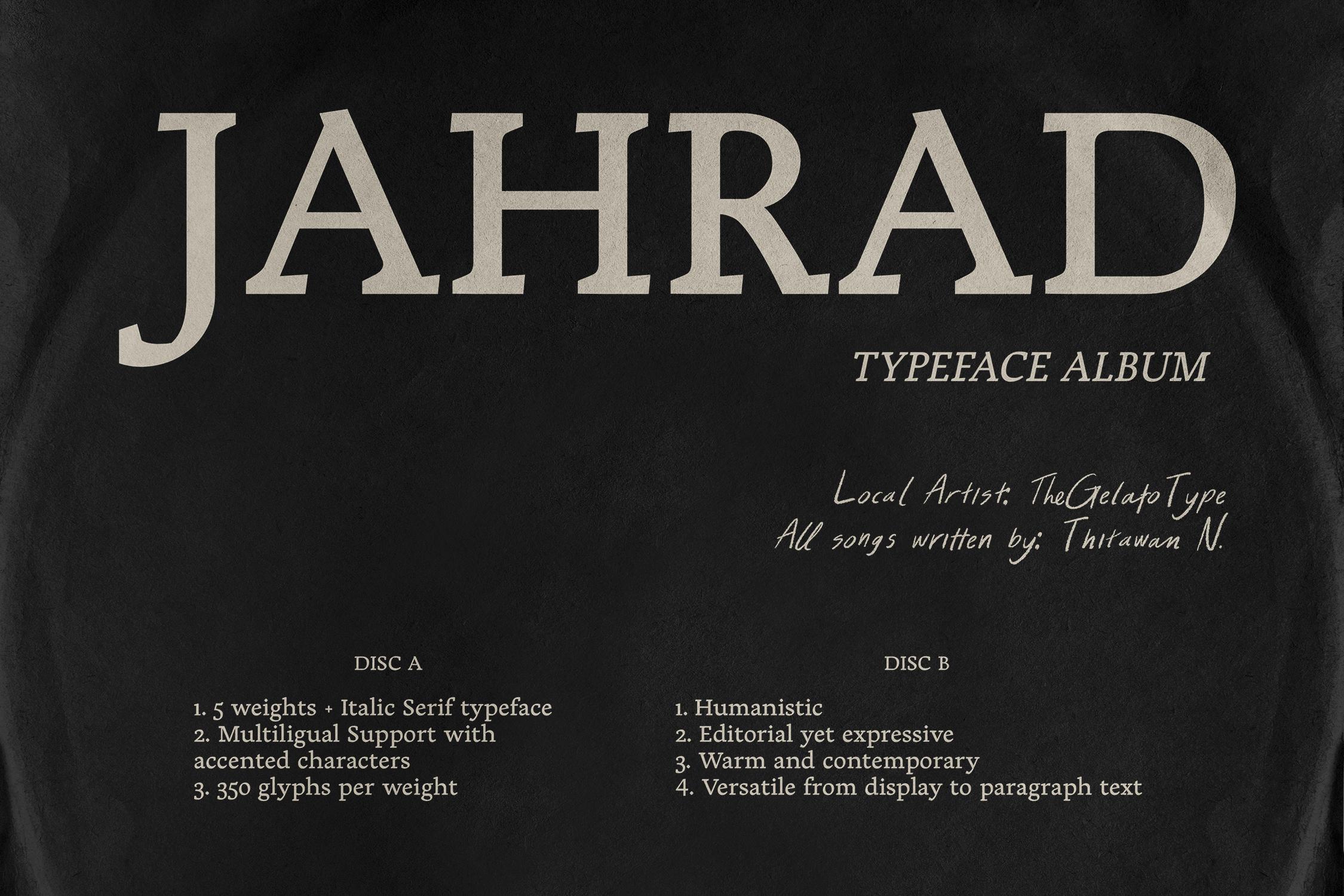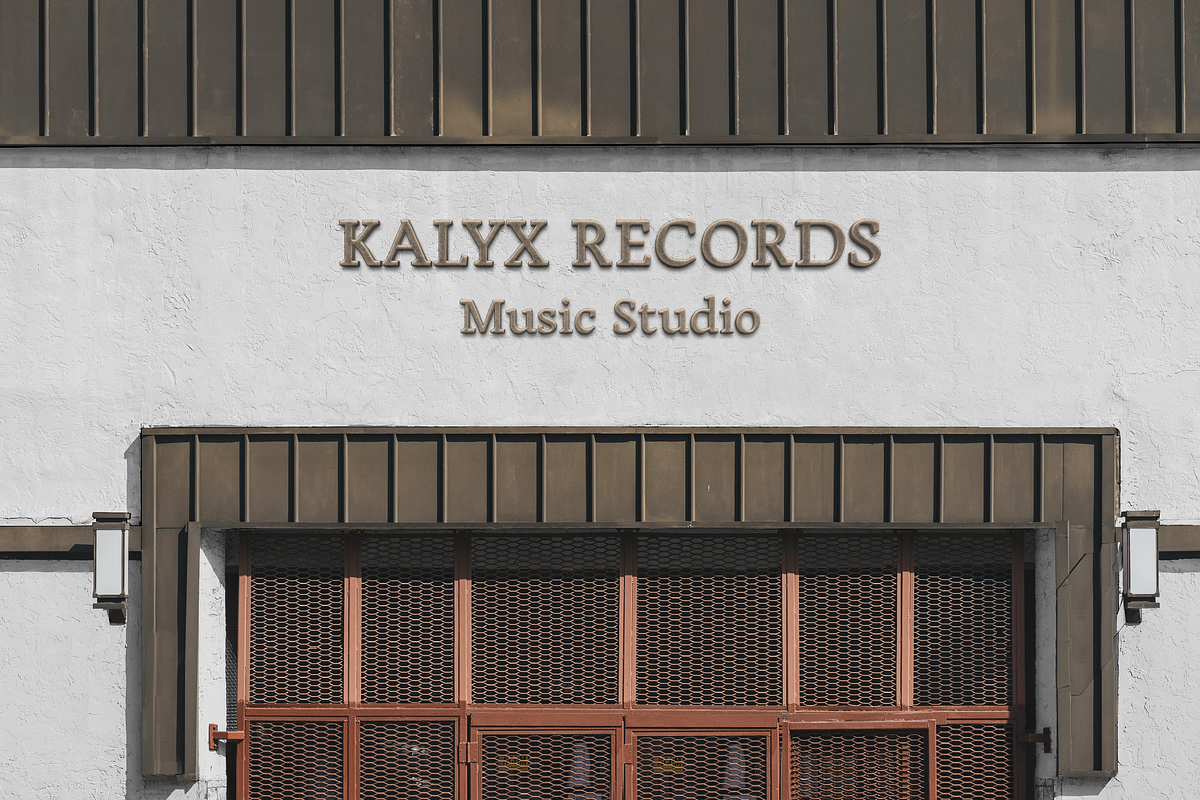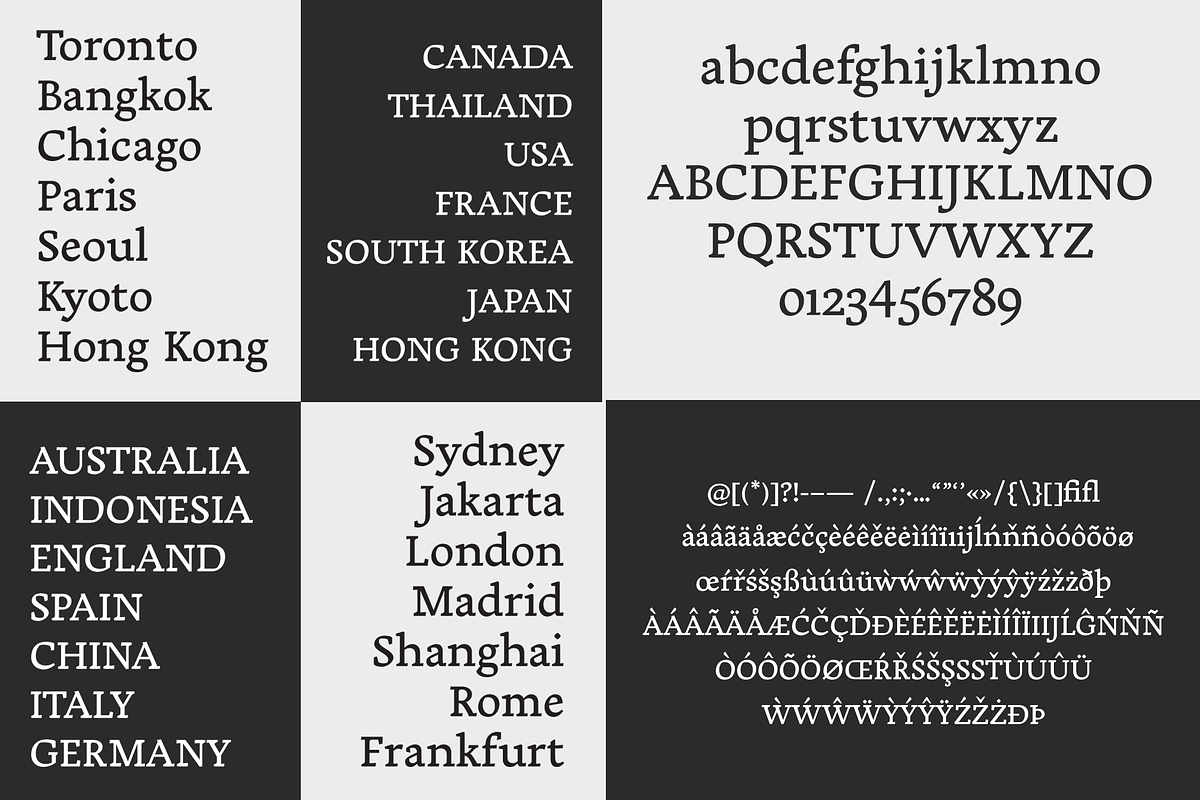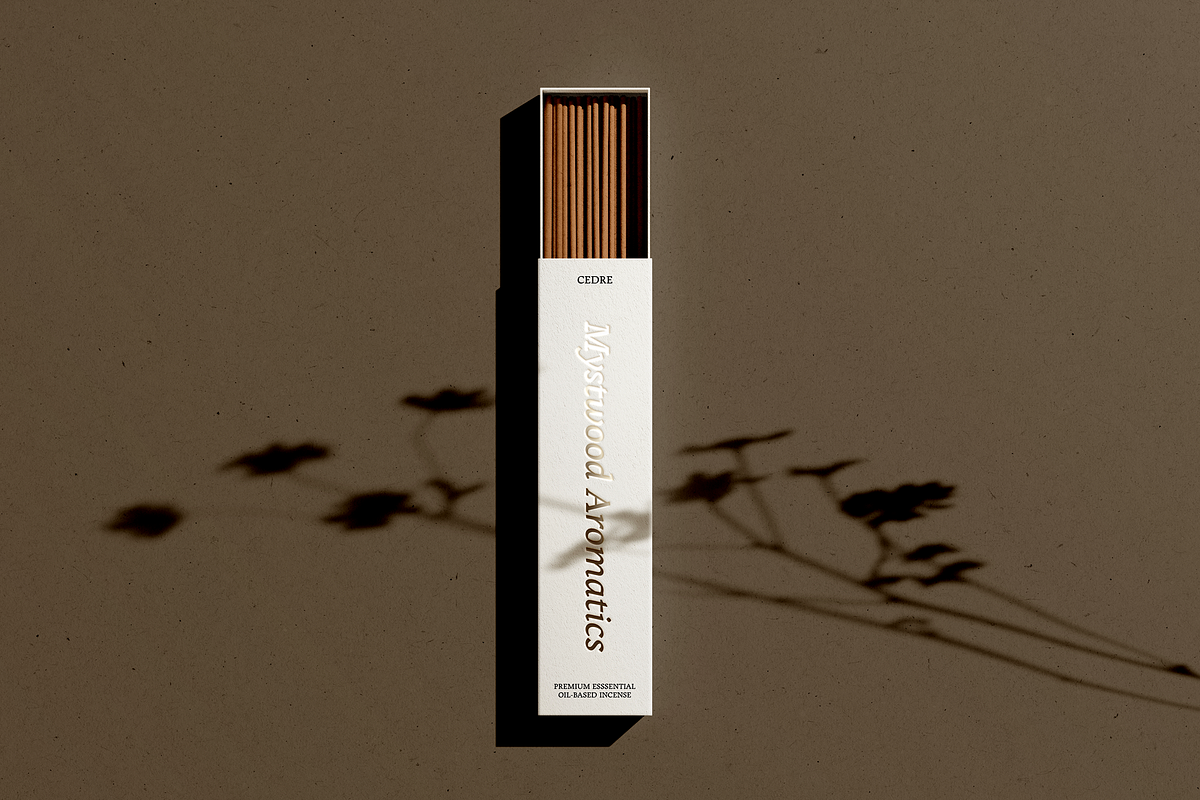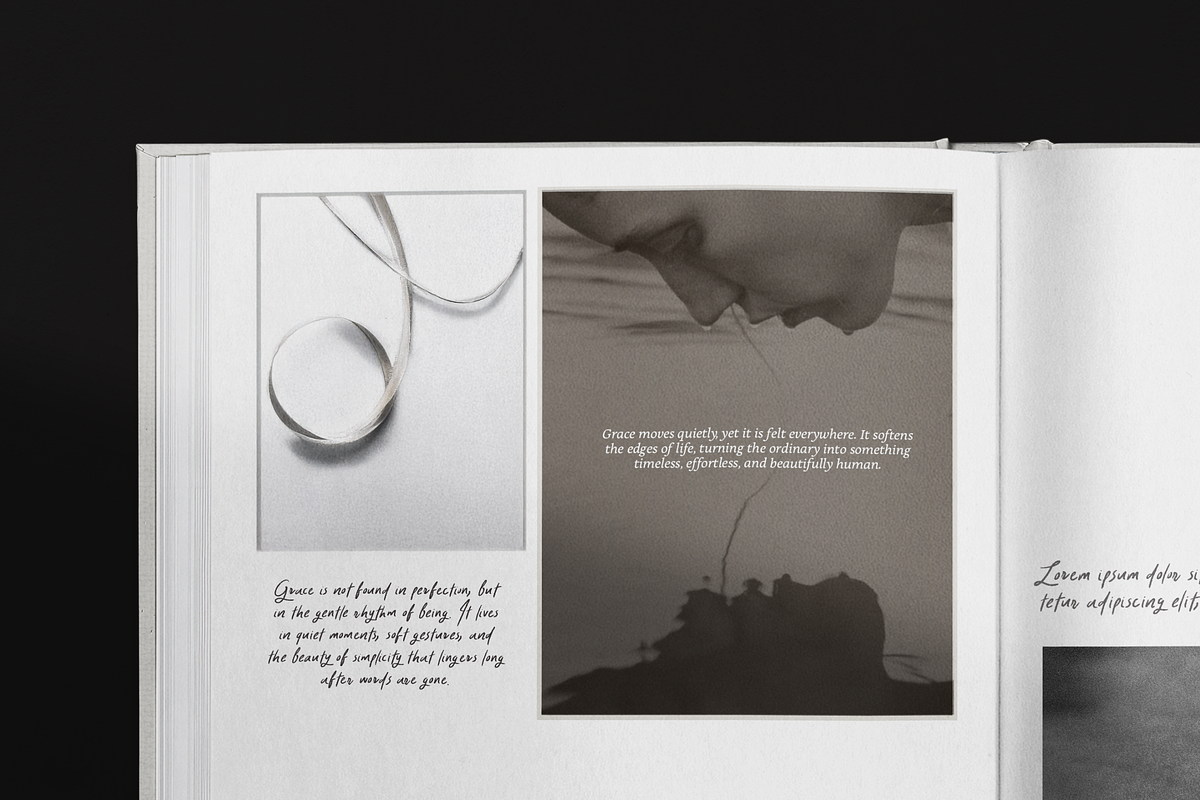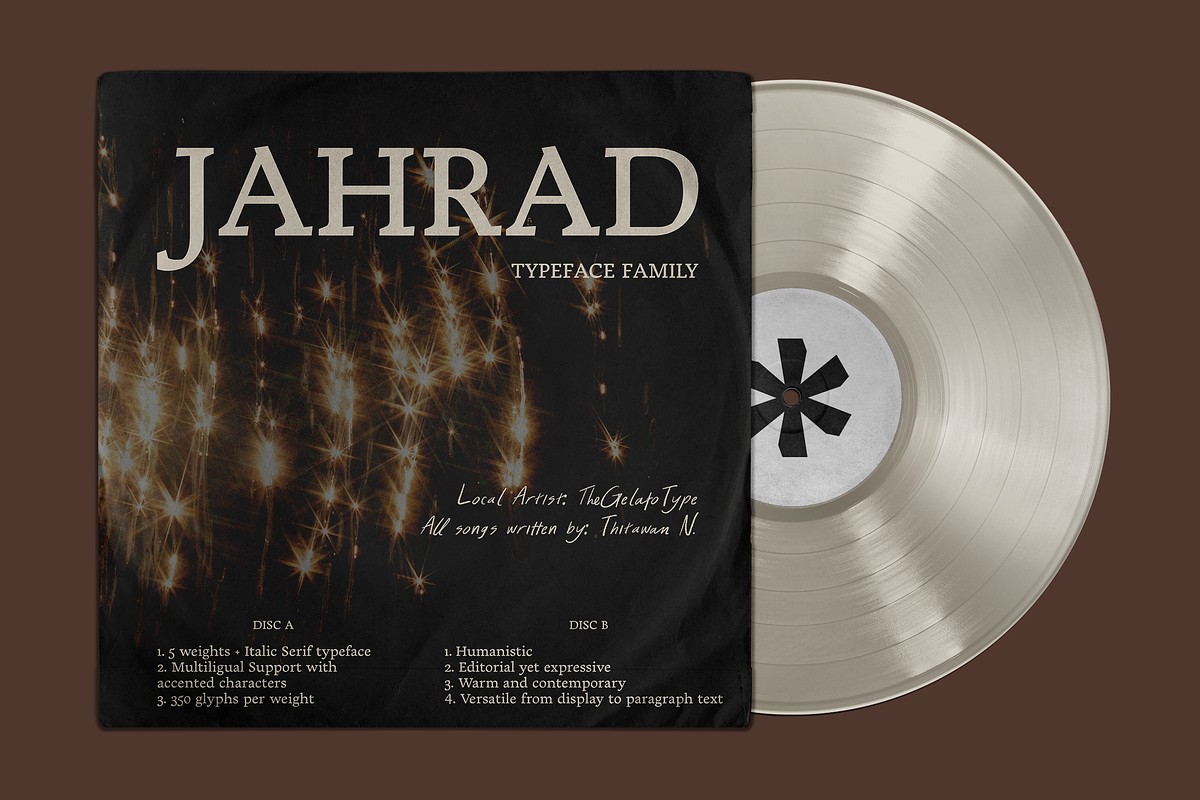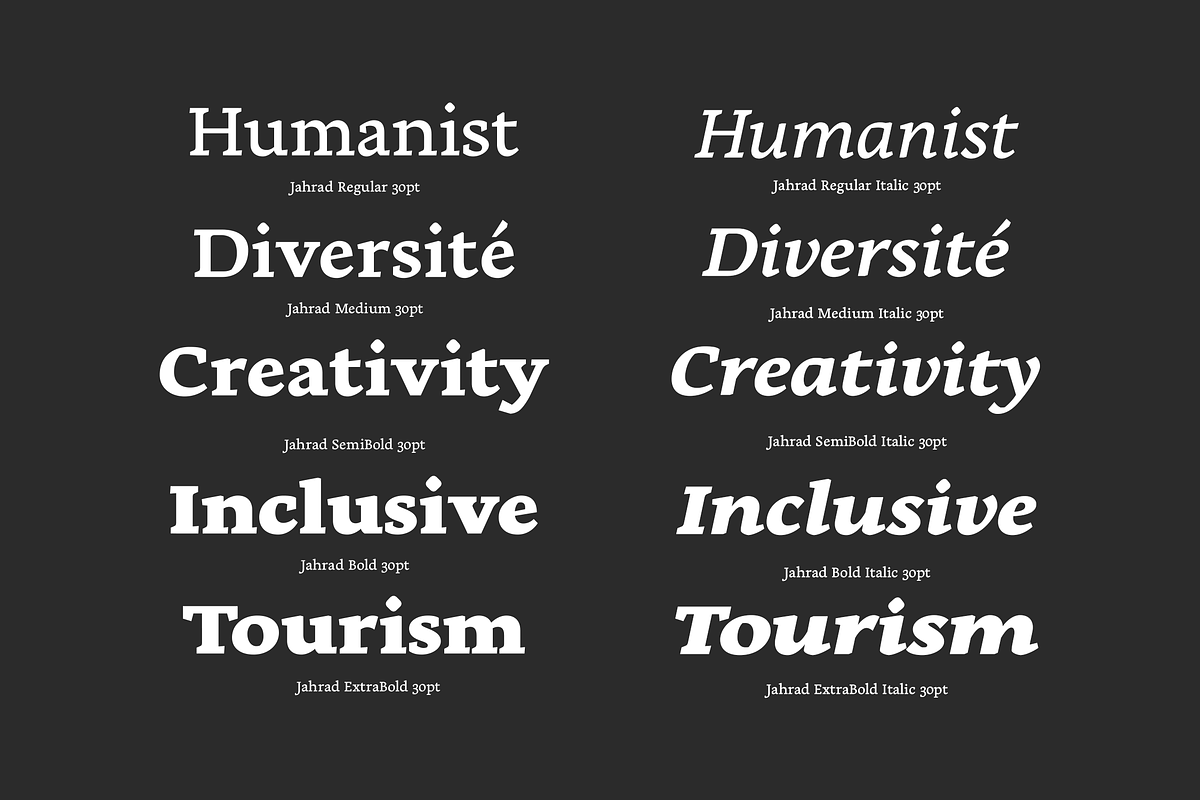
Jahrad Serif typeface
Introducing Jahrad — a contemporary serif typeface that balances warmth, clarity, and distinct character. Designed for both display use and long-form editorial work, Jahrad combines expressive forms with precise, practical structure.
5-Weight Serif Family with Matching Italics: Jahrad comes in five weights, each paired with a carefully considered italic. The family is designed to work seamlessly across headlines, subheadings, and extended text, offering flexibility without losing consistency.
Warm Structure with Refined Edges: The letterforms combine natural warmth with subtle tension and sharp detailing. This balance gives Jahrad its distinct personality — expressive but steady, characterful without being overpowering.
Designed for Display and Editorial Use: From large titles to long-form reading, Jahrad maintains a comfortable rhythm and clear structure, making it suitable for magazines, books, branding, posters, and digital layouts.
Extensive Character Set: Each weight includes 350+ glyphs, supporting a wide range of typographic needs with carefully drawn punctuation, symbols, and language support.
Multilingual Support: Jahrad supports a broad range of Latin-based languages, making it suitable for international projects and global communication.